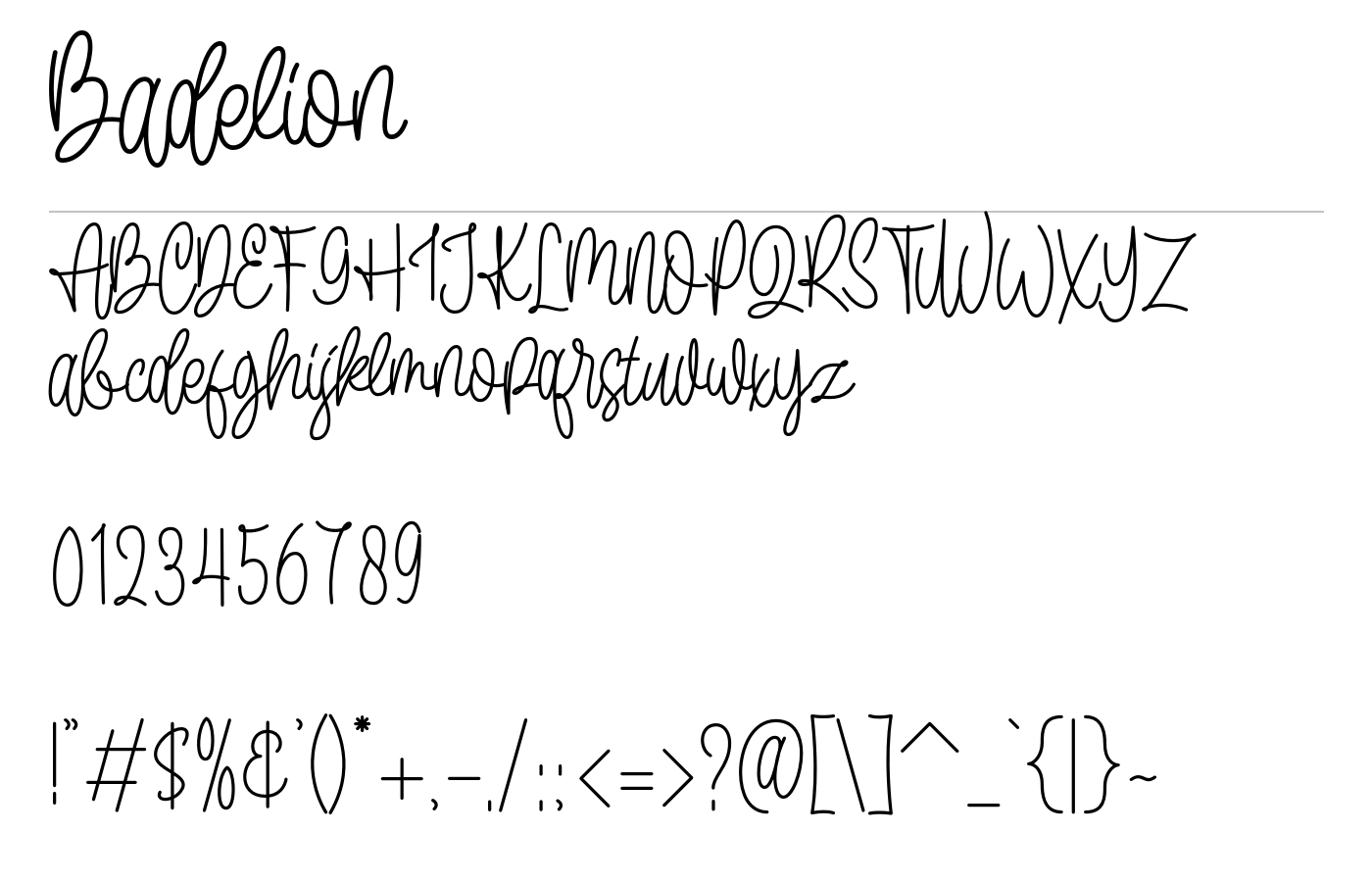
Badelion is a playful, hand-drawn script font characterized by its tall, slender letterforms and fluid, casual strokes. With its light, airy feel and distinctive cursive style, it brings a whimsical and personal touch, making it ideal for creative projects, invitations, and branding that seeks a friendly and approachable vibe. This font works best in headlines and logos where its unique personality can shine.
Badelion Font
About Badelion Font
| Font family | Badelion Font |
| Designer | Dida Ahluddin |